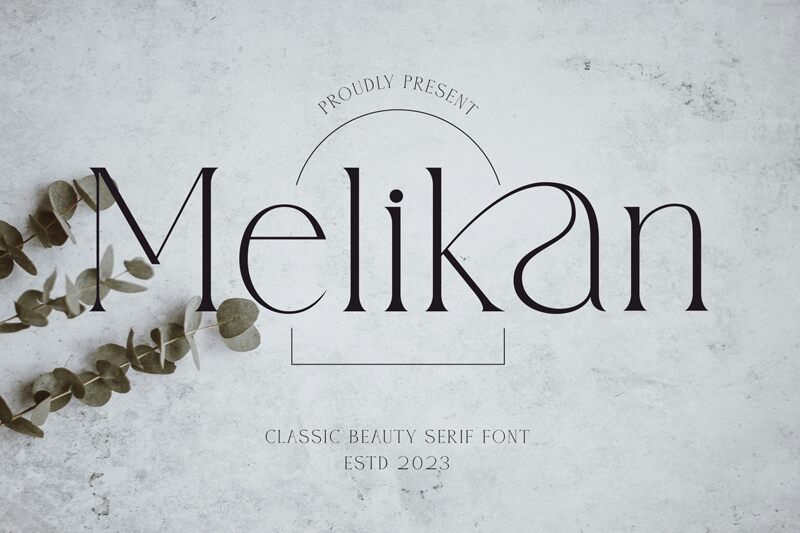
Melikan font family by Muflieart is a sophisticated free serif font family launched to add a dose of elegance and modern flavor to your creative design process. Comprising two font styles, this contemporary typeface is inspired by the aesthetics of classic serif types, combining their beauty with modern influences for results that are truly impactful. Its striking, delicate features and hints of luxury make it a brilliant choice for your upcoming editorial as well as branding designs.
Given its versatility and elegance, Melikan can be used for a range of projects including logos, clothing, marketing materials, posters, print packaging, magazine covers, headlines, business cards, branding, book covers, and more. Suitable for both digital and print projects, this font family is sure to be as inspiring as it is versatile.